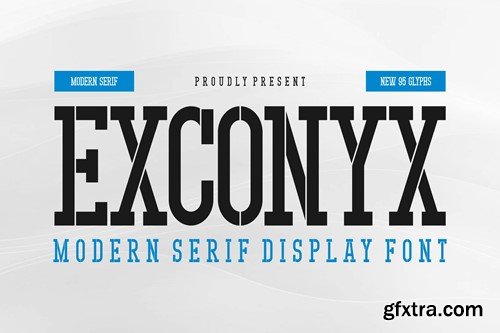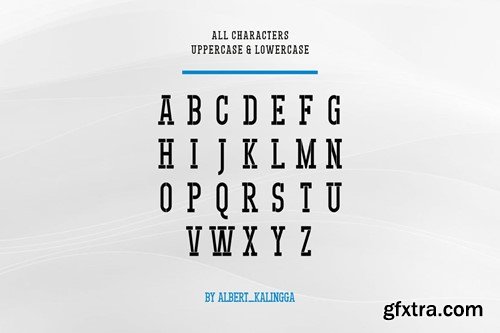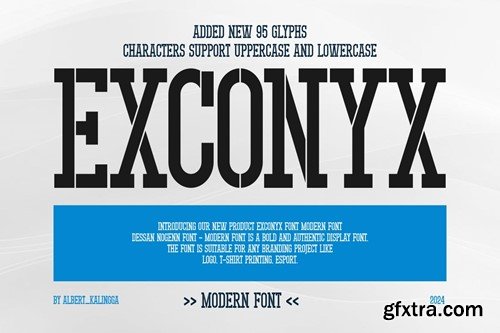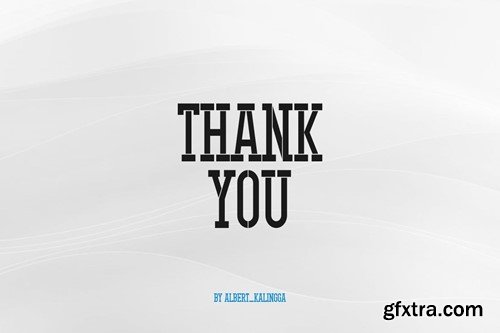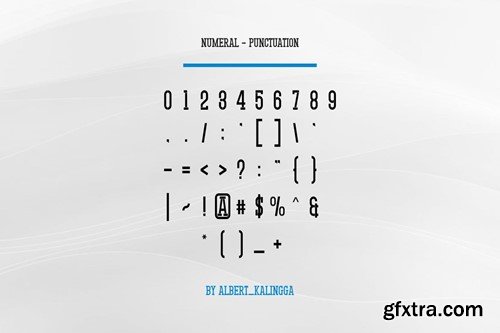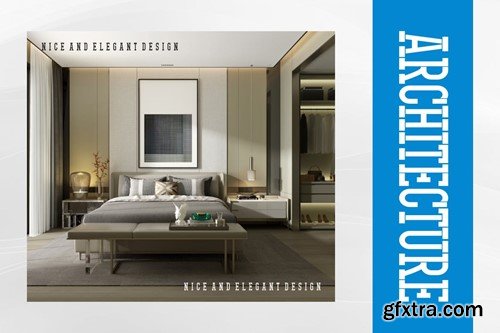
Exconyx Font ZYGB2EG
Exconyx Font
Introducing our new product Exconyx Font - Modern Font is a bold and authentic display font. The font is suitable for any branding project like logo, esport, and many more. outstanding in a wide range of contexts. availlable